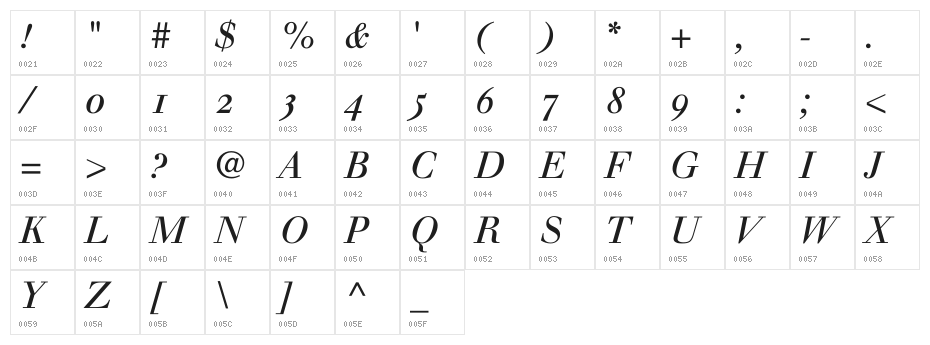
Justus Italic Oldstyle Font
Justus Italic Oldstyle Description
This font exhibits a classic and elegant style with a distinct italic slant, giving it a sophisticated and timeless appearance. The characters are well-defined with moderate contrast between thick and thin strokes, enhancing readability while maintaining an artistic flair. The serifs are gracefully curved, adding a touch of refinement to the overall design. The spacing between characters is balanced, ensuring a harmonious flow of text. This font is suitable for projects that require a touch of elegance and tradition, such as formal invitations, editorial design, and branding for luxury products.
| Proposed Projects | Ideal for formal invitations, editorial design, luxury branding, and classic-themed projects. |